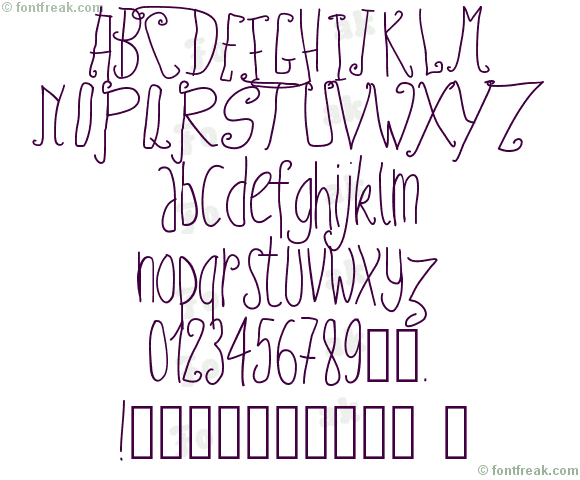
PWFairyTales
About PWFairyTales
PWFairyTales, designed by Peax Webdesign, is a delightful handwritten font that evokes a sense of whimsy and charm. This decorative typeface features playful strokes and a unique personality, making it perfect for various creative projects. The visual characteristics of PWFairyTales include a light-to-medium stroke weight with an organic, flowing quality that enhances its handwritten appearance. The letters are well-spaced, ensuring legibility while maintaining an inviting, casual vibe. Decorative elements, such as playful curls and loops, add to its whimsical nature, making it a standout choice for projects that aim to capture attention.
This versatile font is ideal for a range of specific use cases. It shines brightly in wedding invitations, where its romantic aesthetic sets a dreamy tone for the celebration. Additionally, PWFairyTales is perfect for children's book covers, inviting young readers into a world of imagination and storytelling. Its unique style also makes it a great fit for restaurant menus, particularly those featuring a cozy or family-friendly atmosphere. Graphic designers will find it useful for promotional materials, as it adds a touch of charm to flyers and advertisements. Content creators can use this font in social media graphics to convey a fun and approachable brand image.
Targeting graphic designers, small business owners, and content creators, PWFairyTales brings a personal touch to any project. The font’s enchanting style invites users to explore their creativity while maintaining a professional appearance. Its ability to blend whimsy with clarity makes it a remarkable choice in the world of typography. For those looking to elevate their designs, the PWFairyTales font free download is an excellent opportunity to add a unique flair to any creative endeavor.